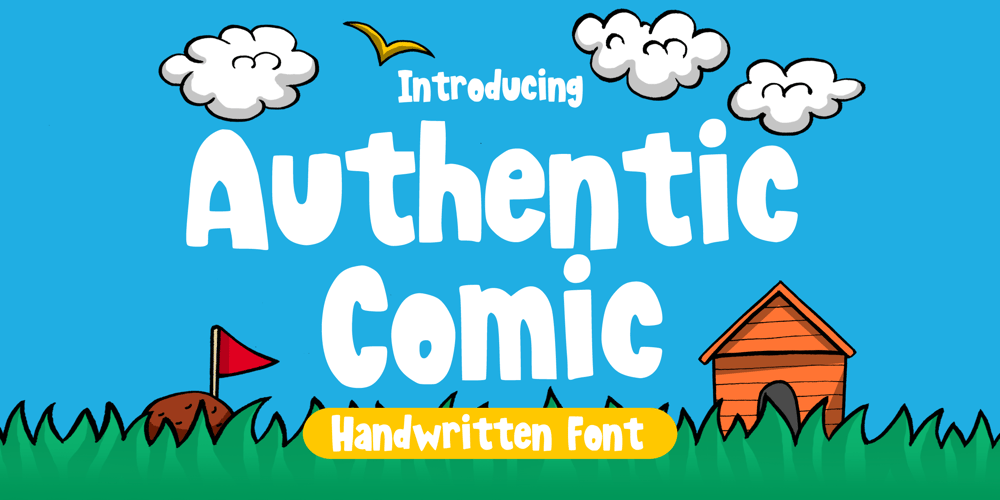
Authentic Comic Font Family was designed by Gabriel Valentinus and published by Mvmet. Authentic Comic contains 1 styles and family package options. Authentic Comic is a playful cartoon display font. You can use it for anything ranging from t-shirts and clothing, for your book designs, summer party needs, greeting cards, stickers, posters, banners, or anything that needs a bold and fun touch. Try it to create fabulous designs and feel the fun and cheering vibes with it!